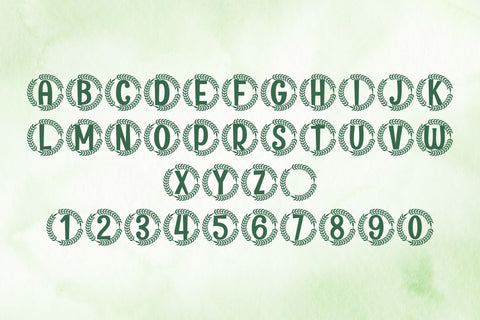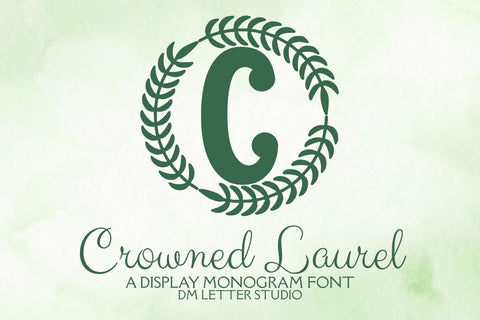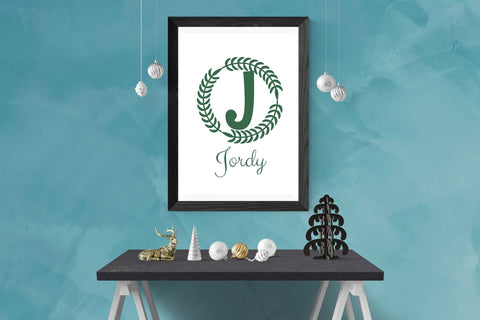
Crowned Laurel Monogram
Meet Crowned Laurel, the Monogram Font
Crowned Laurel Monogram turns simple initials into regal emblems with a classic laurel finish and a crown-like presence. It’s made to feel formal, premium, and timeless, without looking heavy. The strokes are smooth and balanced, so letters stay clear at any size. Because counters remain open, tiny tags print crisp while large signage looks sharp and refined. Use it for wedding suites, family crests, boutique logos, certificate seals, wax stamps, stationery, and luxury packaging. As a result, your designs instantly look elevated and official.
Fast layouts with the Crowned Laurel Monogram Font
Start with a generous initial and center it like a seal. After that, add names, dates, or a short tagline in a simple supporting font. Because Crowned Laurel holds shape at small sizes, stickers, tags, ribbons, and wax seal designs stay clean. In addition, it pairs beautifully with oval borders, badge frames, ribbon banners, and fine dividers, so full sets come together fast. Finally, save palette pairs like black & gold, navy & ivory, charcoal & champagne, or forest & cream to reuse across your product line.
Creative uses and quick wins
- Family crest logos, brand seals, and monogram badges
- Wedding crests, invitations, menu headings, and table numbers
- Wax seals, ribbon tags, and keepsake boxes
- Certificate stamps, labels, and premium packaging
- Select stylistic alternates for key letters
- Curves tuned for foil, letterpress, engraving, laser, vinyl, DTF, and sublimation
Design tips for Crowned Laurel Monogram Font
Keep copy short and let the initial lead. Also, add a thin inner stroke or a subtle shadow to bring out the crest effect on light backgrounds. For print texture, try cotton paper, linen stocks, or soft-touch boxes. Finally, export at 300 DPI for print and at 2× size for web so edges stay smooth everywhere.